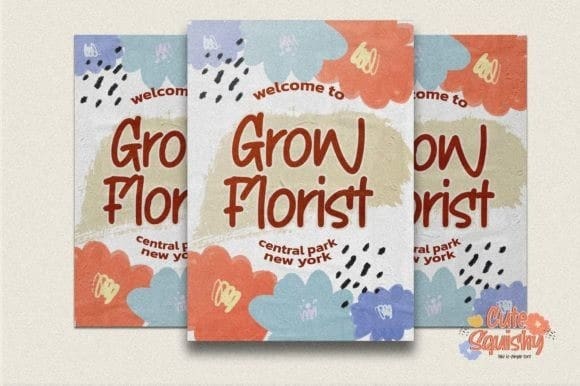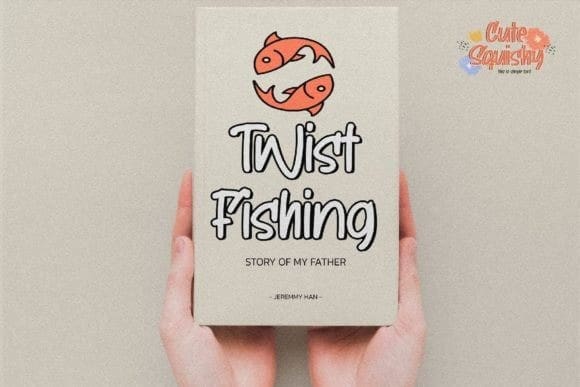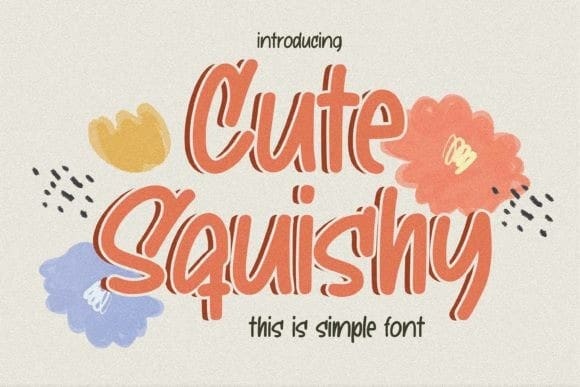
Cute Squishy Font
Cute Squishy Font is a Simple Font with a natural feel. This handmade font will give your design a beautiful natural touch. It is perfect for any design project such as invitation, logo, book cover, craft, or any design.
Cute Squishy is Inspired by the Food Logo style combined with the Unique Craft style. that will fulfill your design needs for quotes, sporty theme, logotype, wordmark, etc.